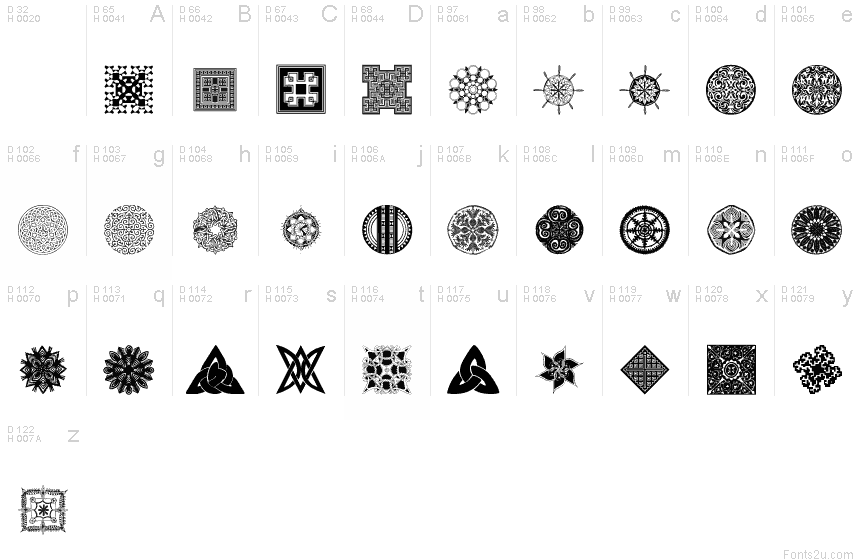
Wmdesigns2 by Willymac is a free ornamental dingbat font built from dense, symmetrical emblems. Geometric latticework, circular medallions, floral scrolls, and sharp interlaced forms have a carved or engraved quality. Each symbol is richly patterned.
Its clearest use is in logos and packaging for heritage or fantasy products, where a single motif can function as a seal. It also suits invitations and poster art, especially when the ornament becomes a border or centerpiece in an illustration.